1. What Is a Number Font Style?
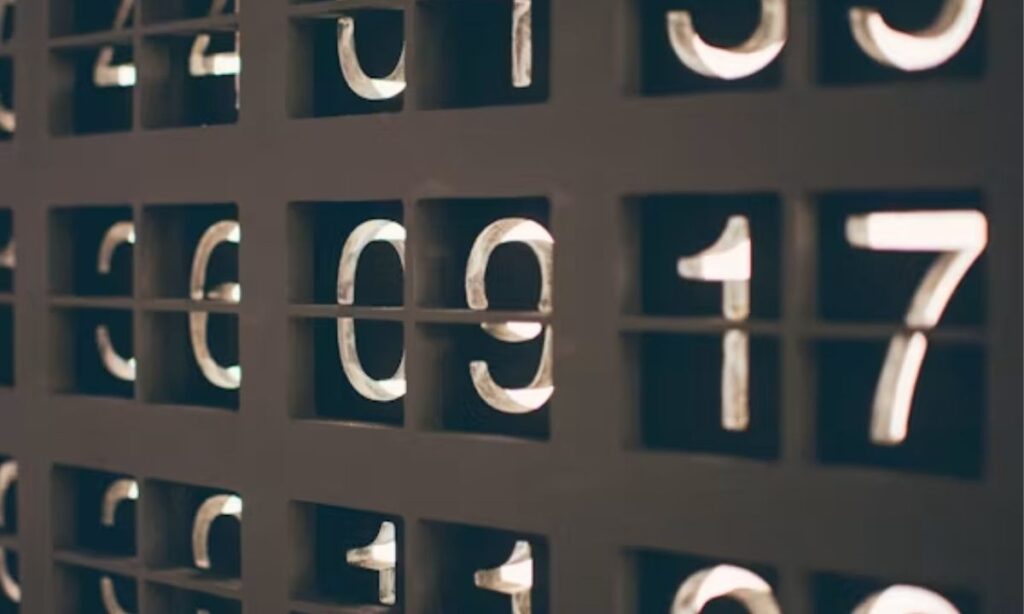
A number font style refers to the design and appearance of numerical characters within a typeface. It affects readability, visual appeal, and branding. Designers, businesses, students, and content creators use different number font styles to match specific projects, from professional documents to creative graphics.
Common number font styles include serif, sans-serif, monospace, decorative, bold, italic, and handwritten designs. Each style serves a different purpose and creates a unique visual impression.
2. Why Does Number Font Style Matter?
Number font style improves communication by making numerical information easier to read and understand. Choosing the right style also strengthens visual consistency across websites, presentations, logos, and printed materials.
Key benefits include:
- Improves readability.
- Enhances professional appearance.
- Supports brand identity.
- Creates visual hierarchy.
- Matches different design themes.
Selecting the appropriate number font style helps users interpret data quickly while maintaining an attractive layout.
3. Types of Number Font Styles
Several number font styles are available for different applications.
Serif Numbers
Serif number fonts include small decorative strokes at the ends of characters. They suit books, newspapers, and formal documents.
Sans-Serif Numbers
Sans-serif numbers have clean, simple lines without decorative strokes. They work well for websites, mobile apps, and modern branding.
Monospace Numbers
Every character occupies equal horizontal space. Programmers and developers often use monospace fonts because they align numbers accurately.
Decorative Numbers
Decorative number styles focus on creativity rather than readability. They appear in invitations, posters, logos, and social media graphics.
Handwritten Numbers
Handwritten number fonts create a casual and personal appearance. Designers often use them for greeting cards, crafts, and creative projects.
4. Where Are Number Font Styles Used?
Different industries use number font styles for specific purposes.
Common applications include:
- Website design
- Logo creation
- Business documents
- Financial reports
- Infographics
- Presentations
- Product packaging
- Event invitations
- Social media graphics
- Mobile applications
Using the correct number font style ensures consistency and improves the user experience.
5. How to Choose the Best Number Font Style
The best number font style depends on the purpose of your content.
Consider these factors:
- Choose readable fonts for important data.
- Match the font with your brand identity.
- Maintain consistency throughout the design.
- Test readability on desktop and mobile devices.
- Avoid overly decorative fonts for long numerical content.
Simple fonts often perform better when users need to read numbers quickly.
6. Popular Fonts with Attractive Number Styles
Many popular fonts include well-designed numerical characters.
Examples include:
- Arial
- Helvetica
- Roboto
- Montserrat
- Times New Roman
- Georgia
- Futura
- Open Sans
- Lato
- Poppins
These fonts are widely used because they balance readability with visual appeal.
7. Best Practices for Using Number Font Styles
Applying a few design principles can improve the appearance of numerical content.
- Use one primary font family.
- Keep font sizes consistent.
- Maintain sufficient contrast.
- Limit decorative fonts.
- Align numbers properly in tables.
- Test fonts across different devices.
- Use bold numbers only for emphasis.
Following these practices creates professional and accessible designs.
8. Common Mistakes to Avoid
Poor font selection can reduce readability and confuse users.
Avoid these mistakes:
- Mixing too many font styles.
- Using decorative fonts for financial data.
- Choosing fonts with unclear numbers.
- Ignoring mobile readability.
- Using inconsistent font sizes.
A clean and consistent approach delivers better results.